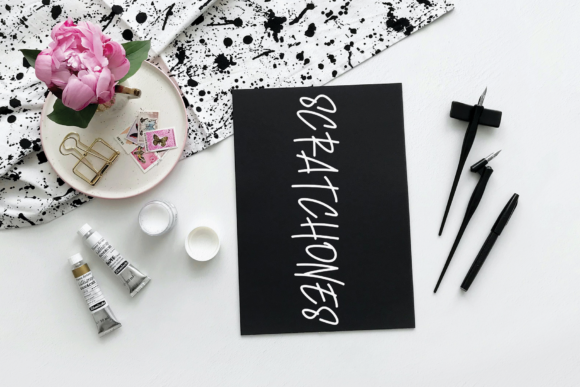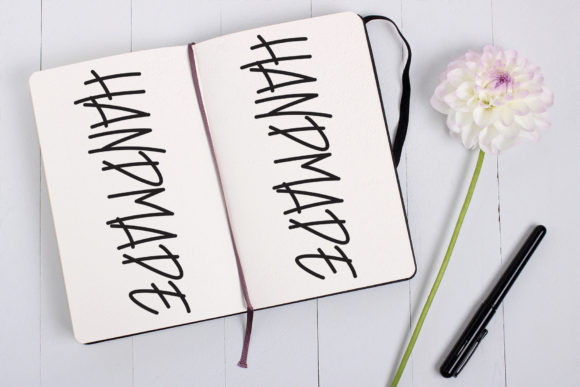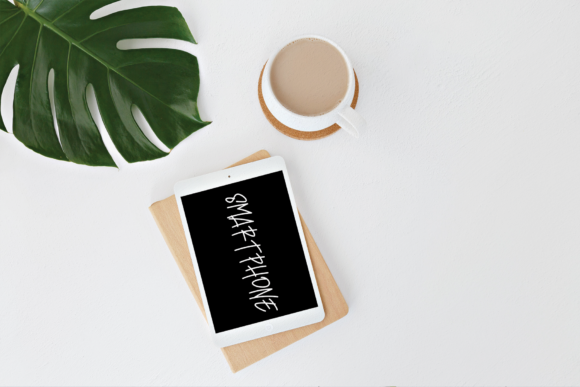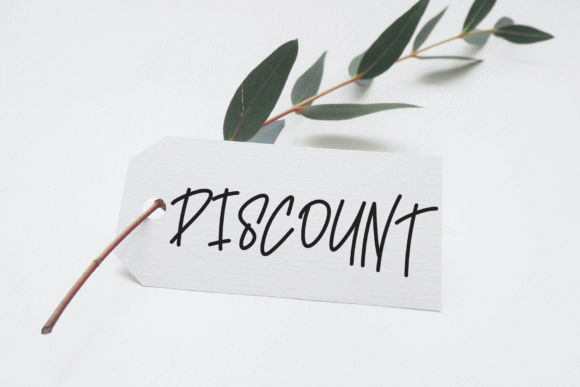
The Bird Font: A Cool, Relaxed, and Casual Handwritten Delight
I’ll never forget the design moment when I stumbled upon the Bird font. I was working on a project for a client who needed a relaxed, casual vibe, and I was struggling to find the right font to convey that feeling. I had scoured through my font library, but nothing seemed quite right. That’s when I discovered Bird, and it was love at first sight! 💕
The Bird font is a handwritten gem that instantly elevates any creation. Its cool, laid-back personality makes it perfect for a wide range of design projects, from social media graphics to branding materials, and even craft projects. In this article, I’ll share my honest review of the Bird font, provide a practical guide on how to use it, and explore similar fonts and alternatives.
- ✅ Unique and quirky personality: The Bird font has a distinct, hand-crafted feel that sets it apart from more traditional fonts.
- ✅ Highly legible: Despite its casual nature, the Bird font is surprisingly easy to read, even at smaller sizes.
- ✅ Versatile: This font works well for a wide range of design projects, from digital graphics to print materials.
- ✅ OpenType features: The Bird font comes with a range of OpenType features, including glyphs and stylistic alternates, which allow for added creativity and customization.
- ⚠️ Limited use for formal projects: While the Bird font is amazing for casual designs, it may not be the best choice for more formal projects, such as corporate branding or official documents.
- ⚠️ Some letters may require adjustment: Depending on the word or phrase, some letters may need to be adjusted for optimal spacing and readability.
The Story Behind Bird: Designer Inspiration
The Bird font was designed with the intention of creating a relaxed, casual handwritten font that would bring a touch of personality to any design project. Inspired by the beauty of handwritten letters and the quirks of everyday writing, the Bird font is a reflection of the designer’s passion for creative typography.
Q: What type of projects is the Bird font best suited for?
A: The Bird font is perfect for casual design projects, such as social media graphics, branding materials, and craft projects.
Q: Does the Bird font come with OpenType features?
A: Yes, the Bird font includes OpenType features, such as glyphs and stylistic alternates, which allow for added creativity and customization.